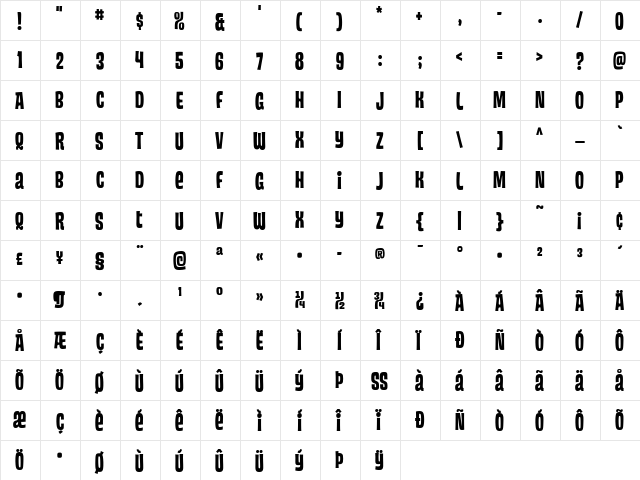
HouseMovementsTT-Custom Regular
| Foundry | Ken Barber |
| Designer | Ken Barber, Tal Leming |
Design Context for HouseMovementsTT-Custom Typeface
HouseMovementsTT-Custom is a composed and adaptable typeface that performs quietly and consistently across a wide range of design contexts.